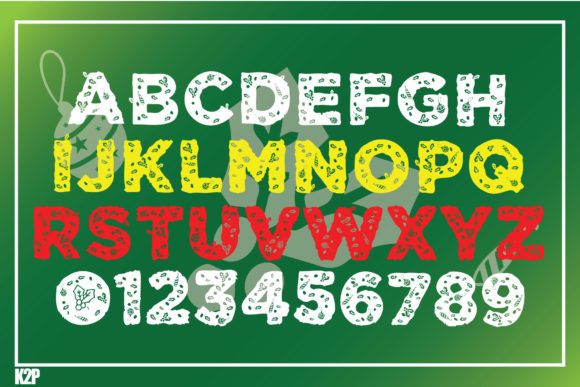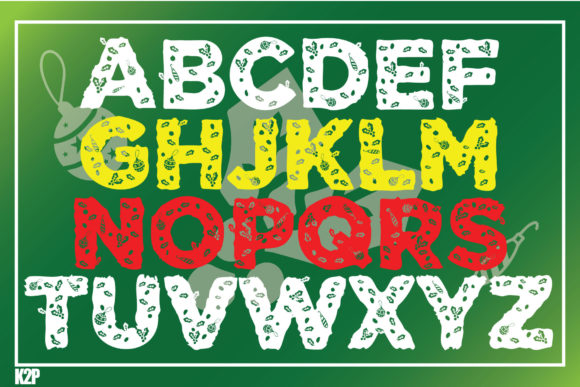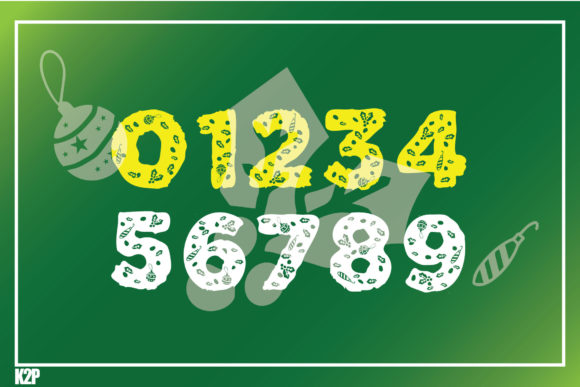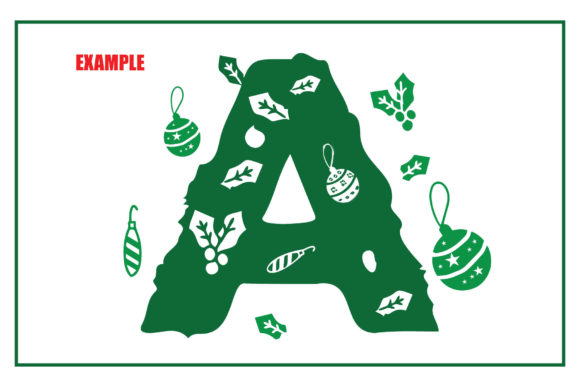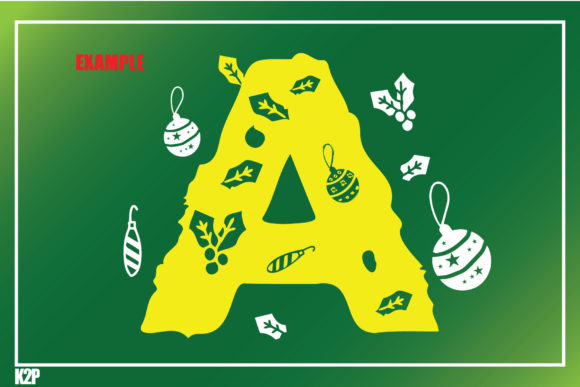
Introduction to Christmas Trees Font
As a designer, there’s nothing quite like the rush of creativity that comes with a new project. You’re brainstorming ideas, flipping through design resources, and searching for that perfect font to bring your vision to life. For many of us, the holiday season is the perfect time to get creative, and what better way to do so than with a font that embodies the spirit of Christmas?
Enter the Christmas Trees Font – a thick, bold, and uniquely festive font that’s sure to add some holiday cheer to your designs. With its high-quality design and transparent background, this font is a game-changer for designers looking to create stunning visual elements for their next project. Whether you’re working on a commercial campaign or a personal creative project, the Christmas Trees Font is a valuable resource that’s sure to make your designs stand out.
Key Features of Christmas Trees Font
• Unique, hand-drawn design elements for a festive feel
• Transparent background option for easy layering and customization
• Perfect design resource for holiday-themed projects, including Christmas cards, invitations, and more
Honest Review: Christmas Trees Font
I recently stumbled upon the Christmas Trees Font, and I must say, it’s been a delightful addition to my design toolbox. This font is perfect for anyone looking to add a touch of festive cheer to their creative project.
• ✨ High-quality design: The font is clean, crisp, and beautifully crafted, making it ideal for any design project.
• ✨ Transparent background: The font is designed to be used on a transparent background, which is perfect for creating stunning visual effects.
• ⚠️ Limited character set: The font only includes a limited set of characters, which may not be suitable for longer texts.
• ⚠️ Not suitable for professional use: While the font is great for personal projects, it may not be suitable for professional use due to its limited character set and lack of advanced features.
Overall, I’m really impressed with the Christmas Trees Font. It’s a great resource for designers looking to add some festive flair to their creative project. Just keep in mind its limitations and use it accordingly.
The Christmas Trees Font is a unique and creative design resource that can add a touch of festive charm to any project. With its high-quality design and transparent background, this font is perfect for various creative projects.
The Christmas Trees Font is perfect for various creative projects, including:
• Christmas card designs
• Party invitations
• Holiday-themed social media graphics
• Printable art